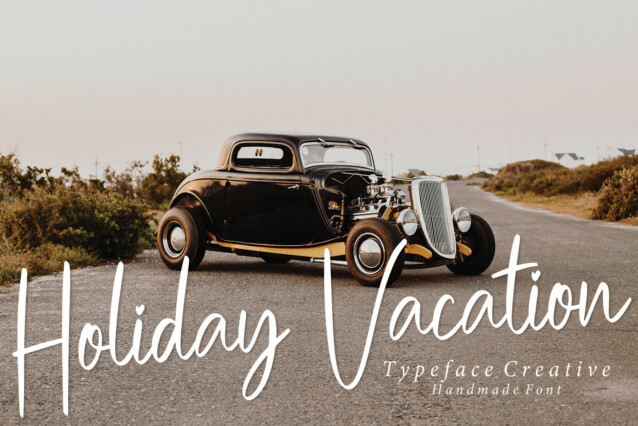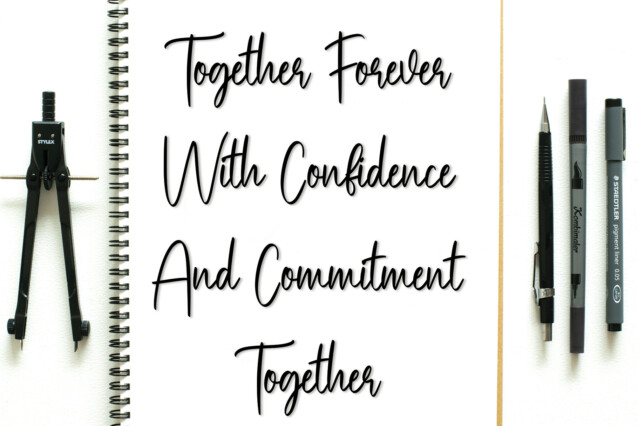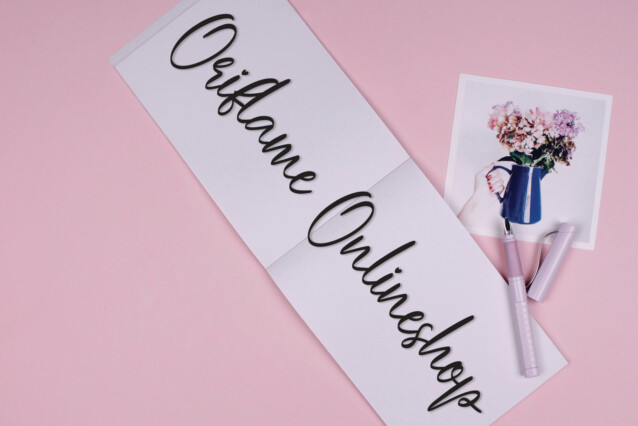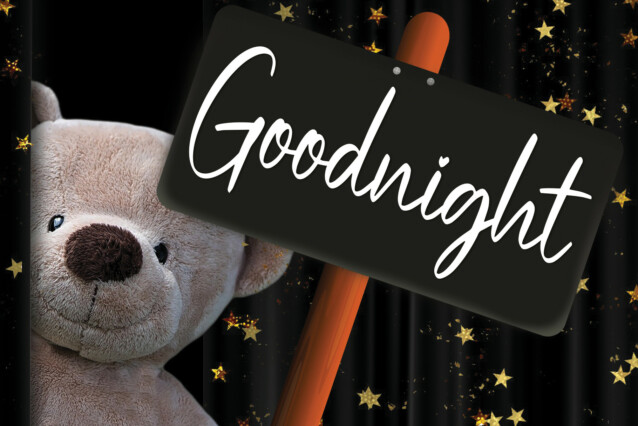
Simple Photography Script Font
Simple Photography Script Font is a dazzling script font. This font is neatly crafted and highly detailed. Whatever the topic, this font will be a wonderful asset to your font library, as it has the potential to enhance any creation.